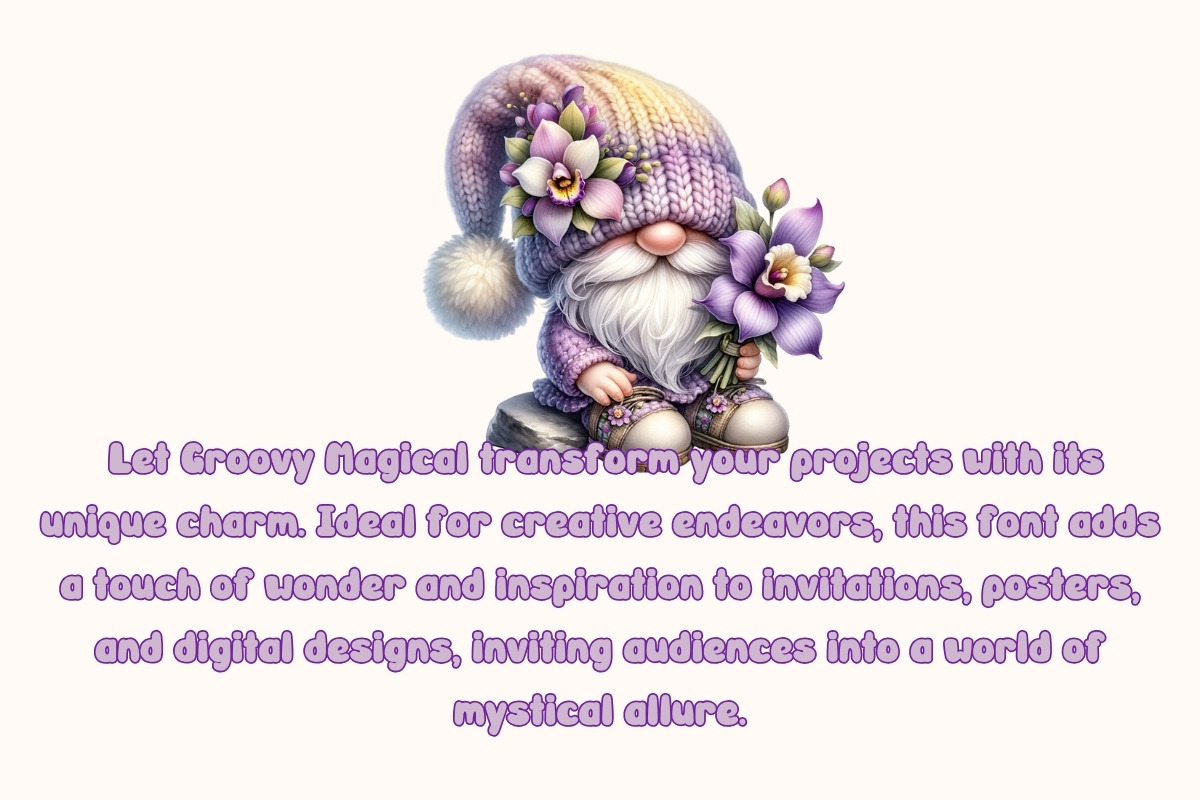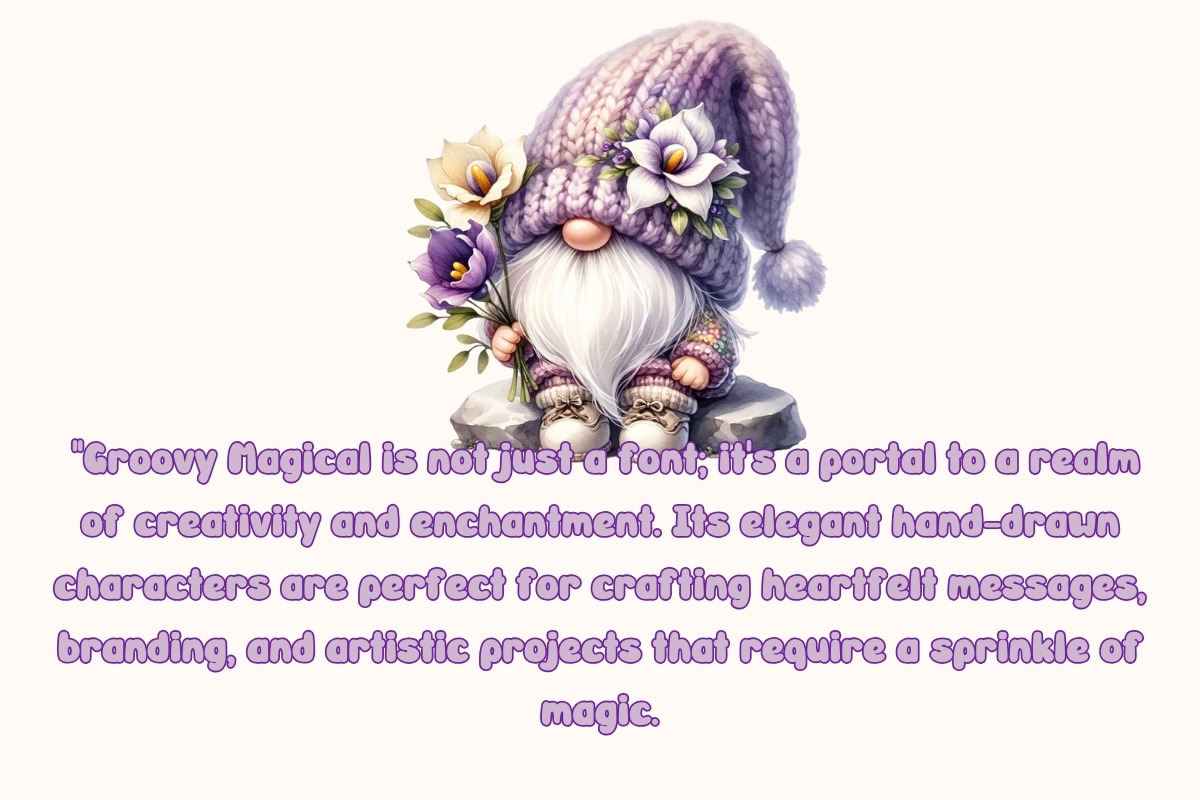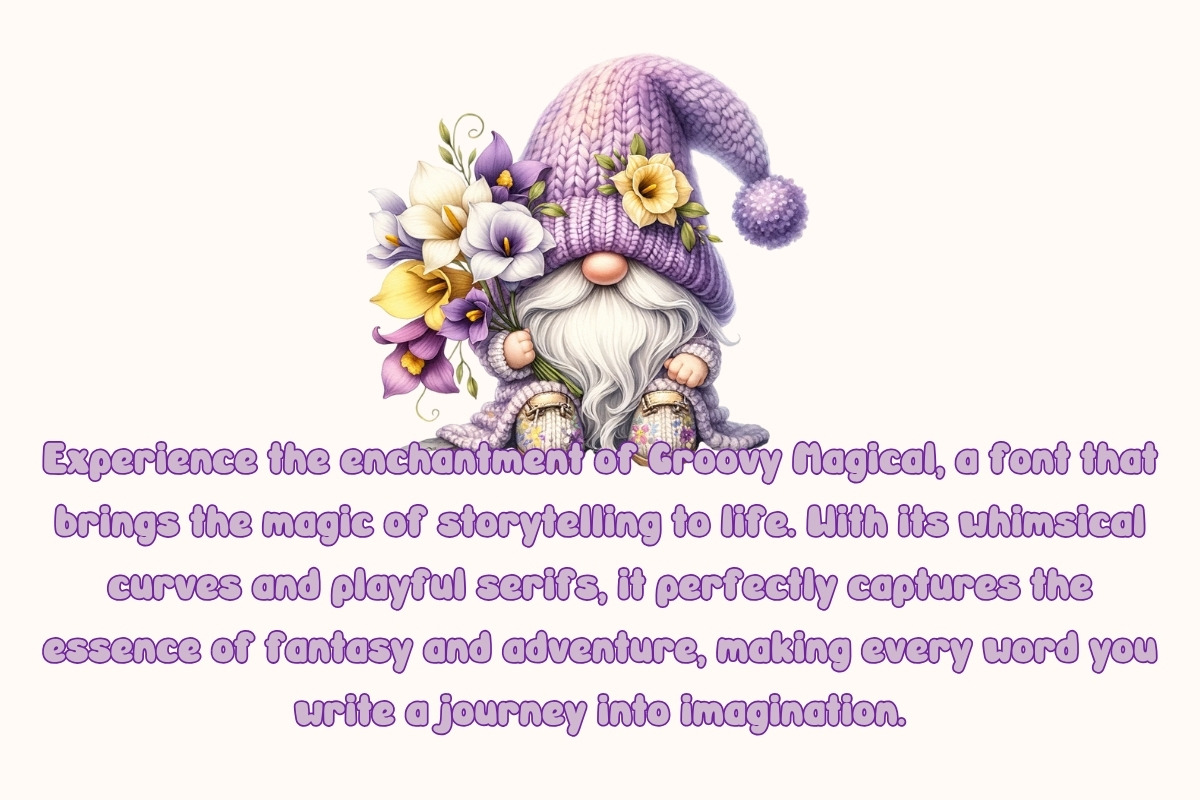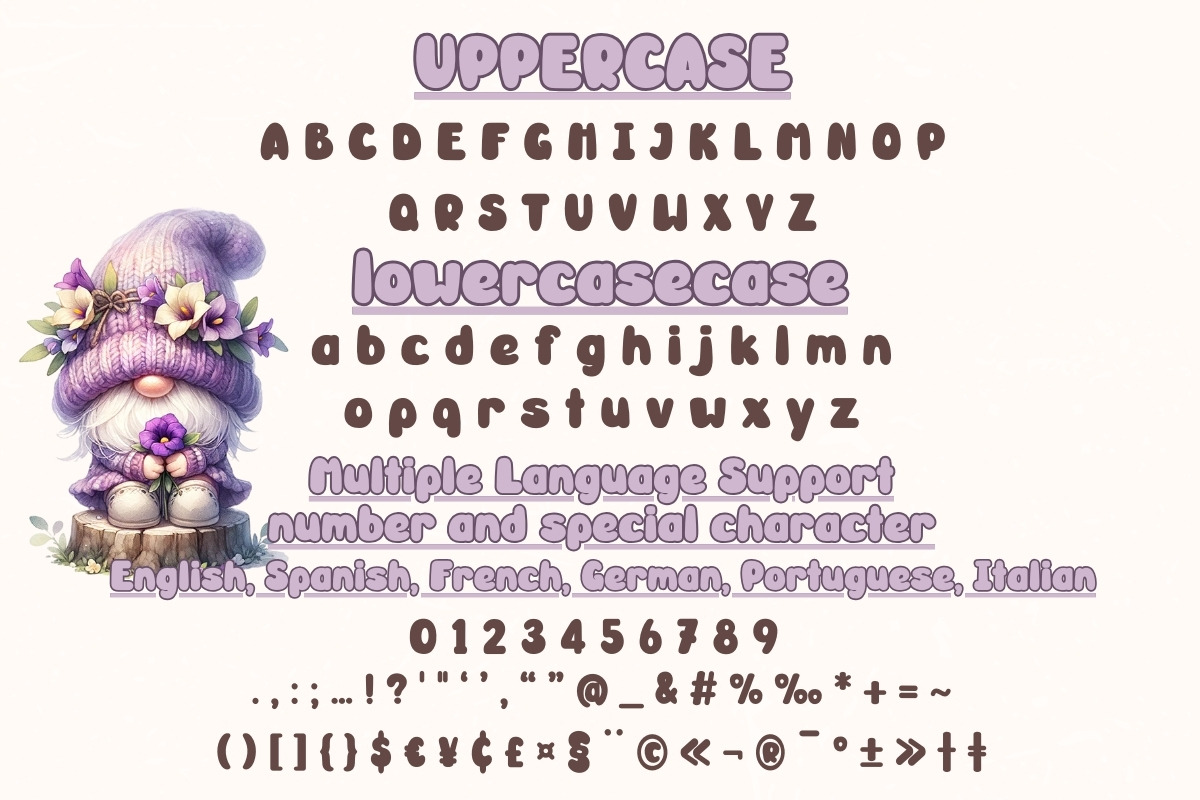
Groovy Magical - Handwritting
"Bring your words to life with Groovy Magical, the font that's as unique and playful as your imagination. This beautiful, cute handwritten font adds a magical touch to invitations, branding, and personal projects. Dive into a world of creativity with Groovy Magical!"